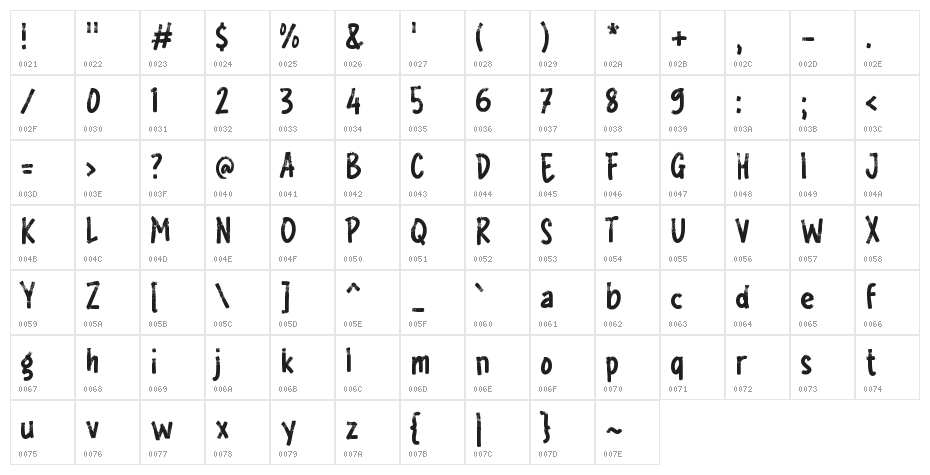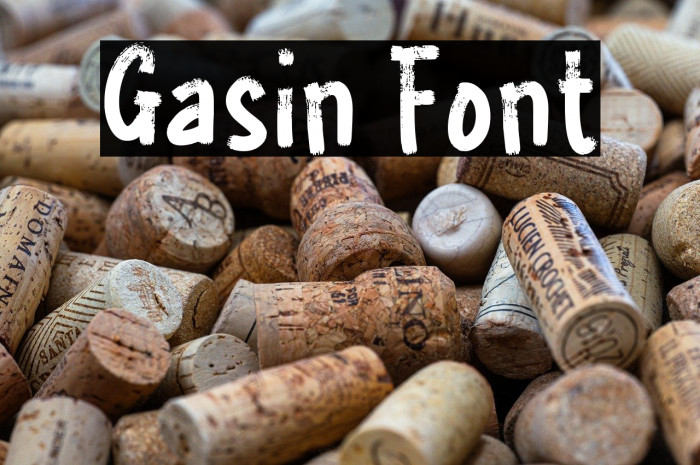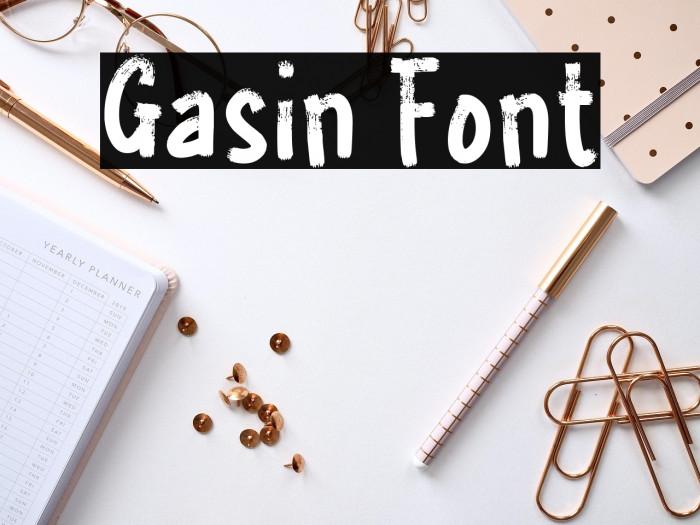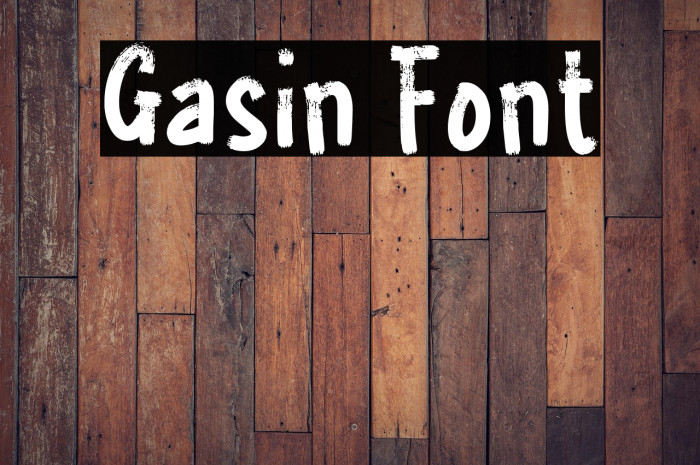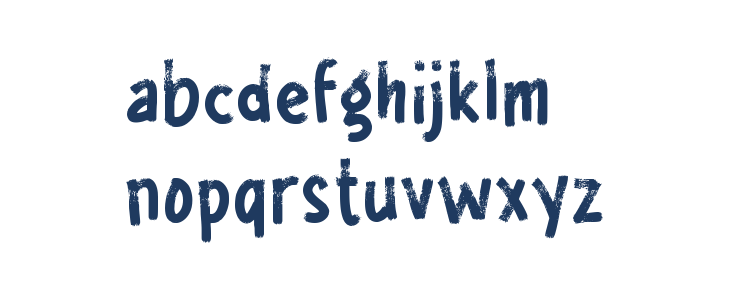
Gasin Font
This font features a bold, distressed style with a hand-painted appearance. The characters have a rough texture, giving them a gritty, urban feel. The uppercase and lowercase letters maintain a consistent style, with slightly uneven edges that add to the handcrafted look. The numerals and special characters follow the same aesthetic, making the font suitable for designs that require a raw, edgy vibe. The overall impression is one of energy and dynamism, perfect for projects that need to convey a sense of movement or rebellion.
| Overall Style | Urban, Edgy, Handcrafted |
| Proposed Projects | Ideal for posters, album covers, streetwear branding, and event flyers. |